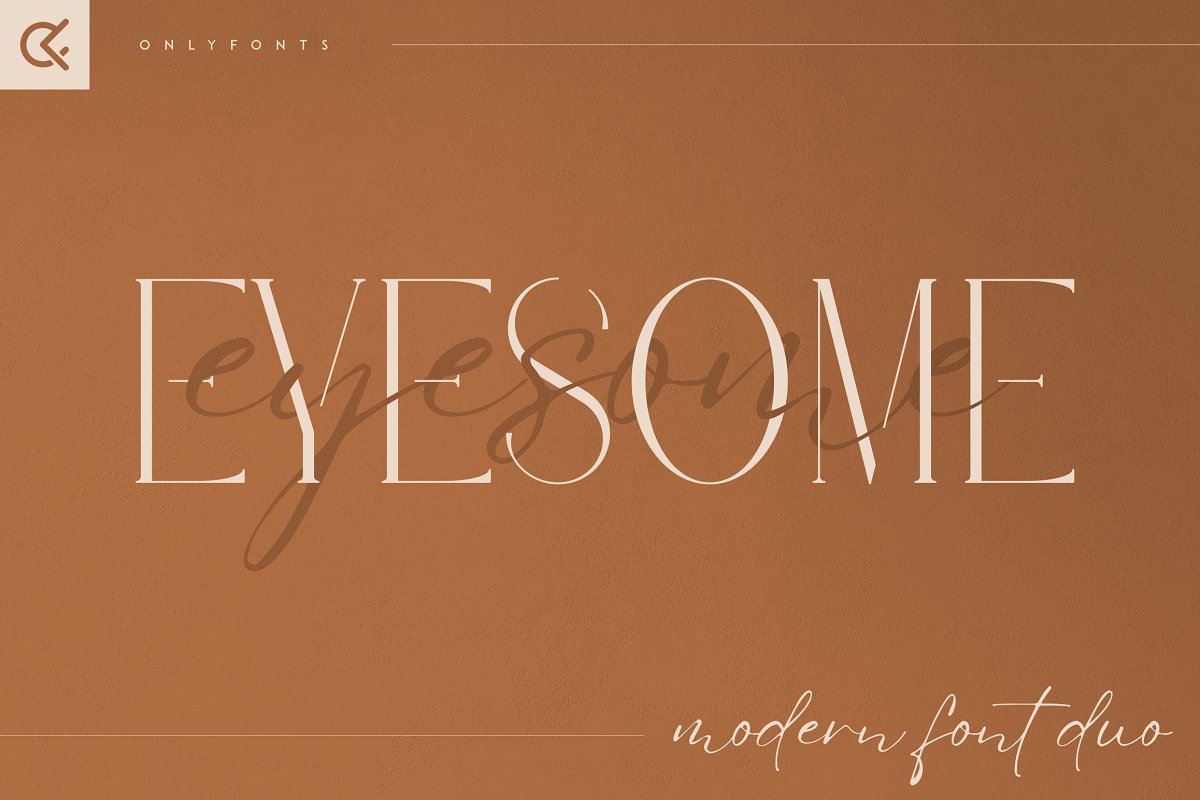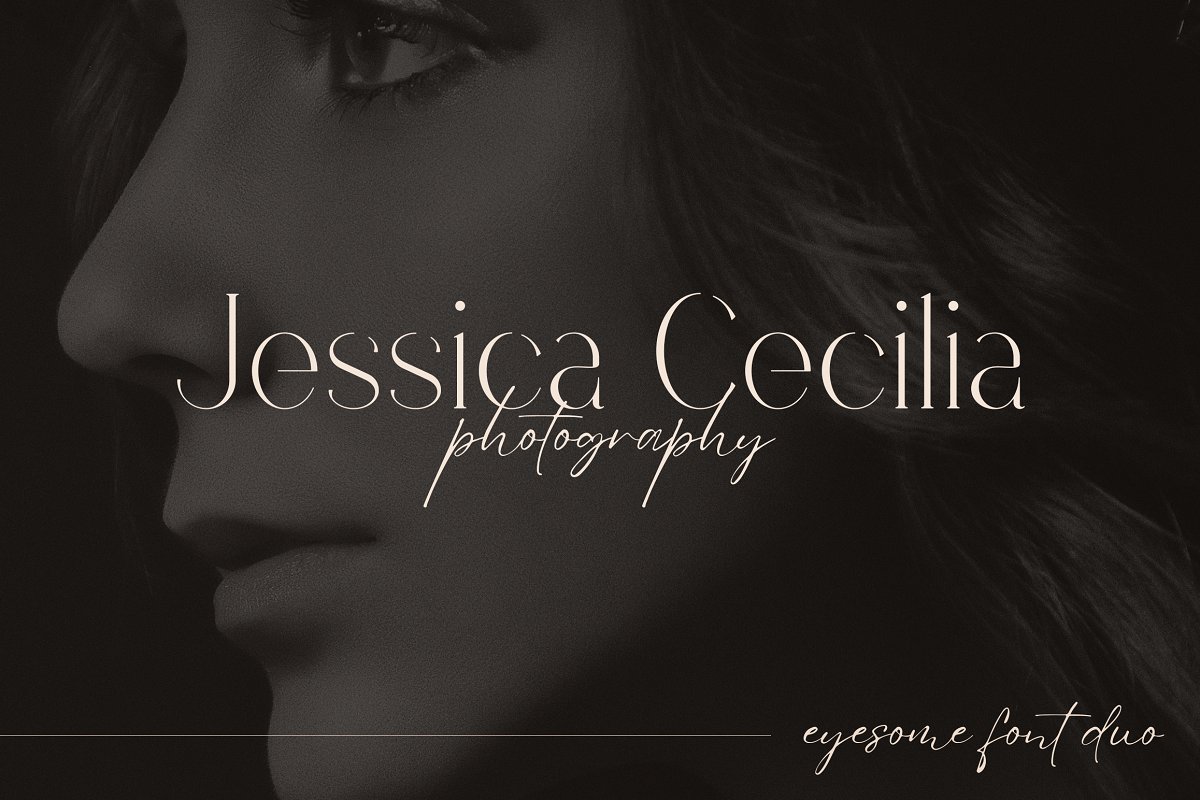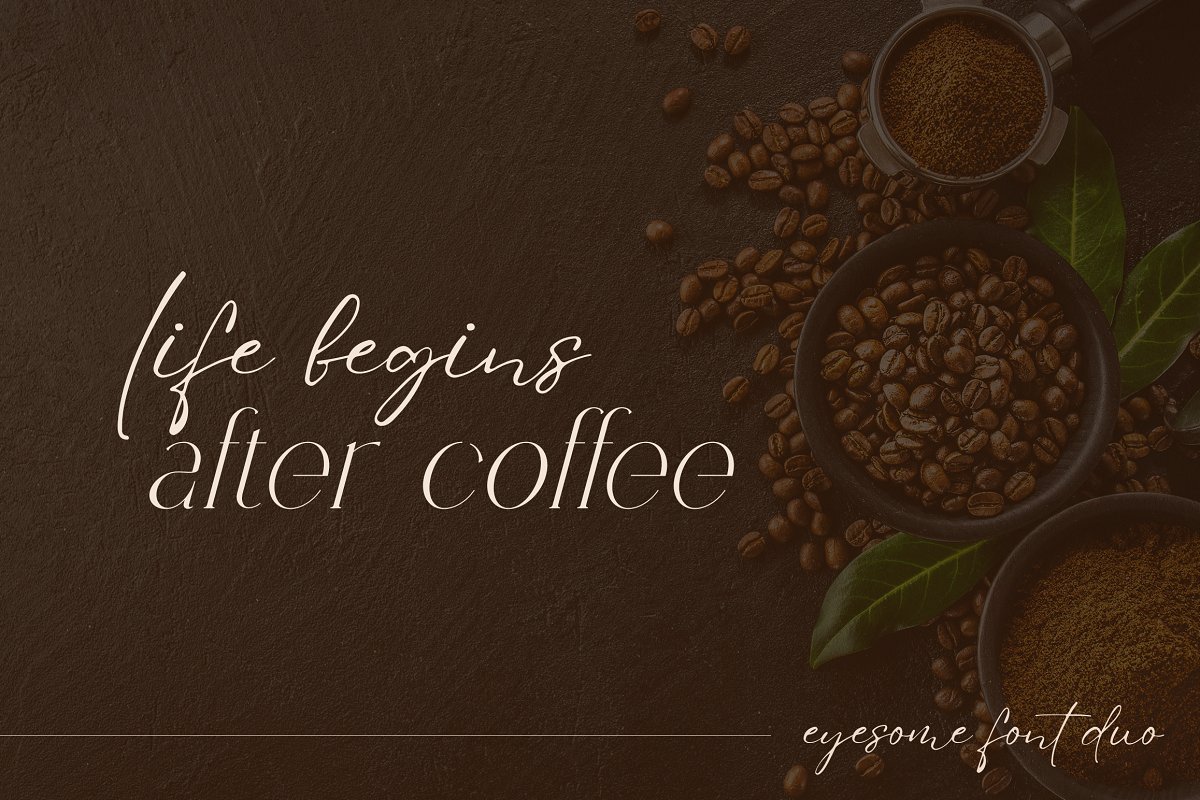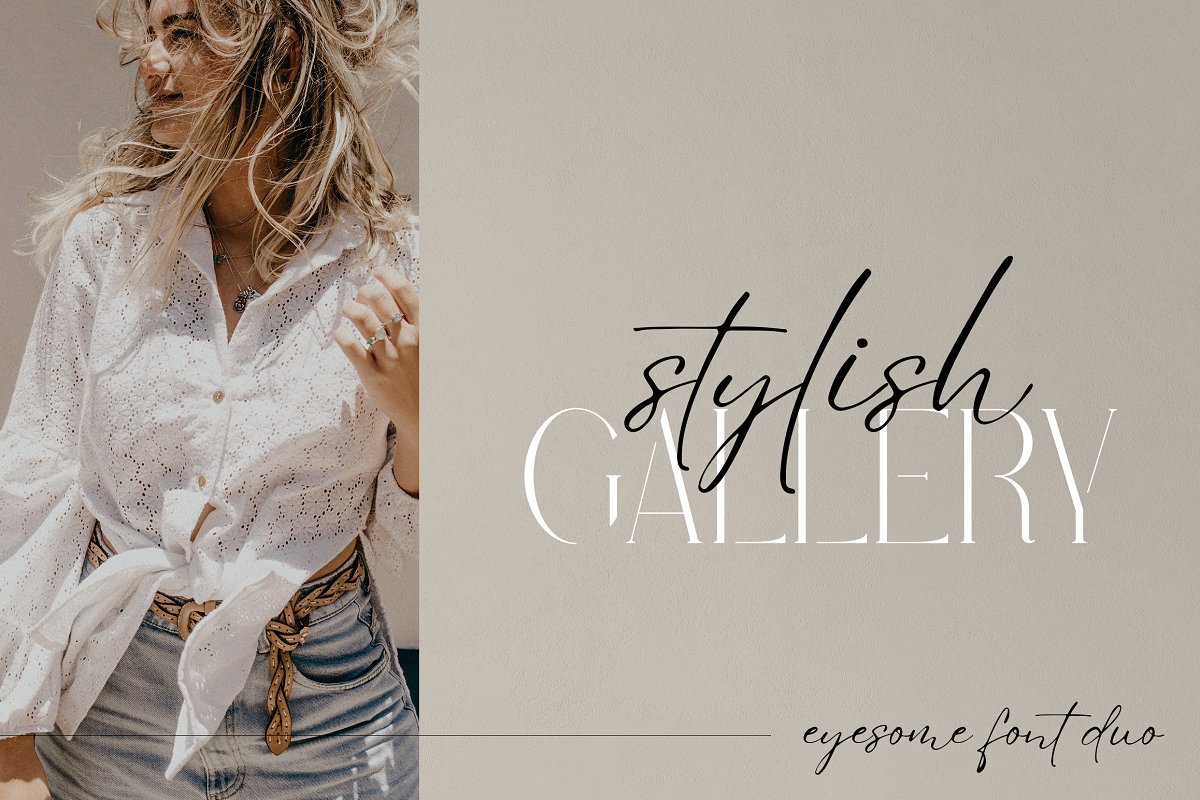
Eyesome Modern Font Duo Free Download
About the Eyesome Modern Font Duo
Introducing Eyesome – Modern Font DuoEyesome is elegant and organic typeface with multilingual support, It’s a very versatile font that works great in large and small sizes, Eyesome is perfect for branding projects, home-ware designs, product packaging, magazine headers – or simply as a stylish text overlay to any background image, FEATURESUppercase, lowercase, numeral, punctuation & SymbolRegularItalicScriptMultilingual supportNo special software is required to type out the standard characters of the Typeface